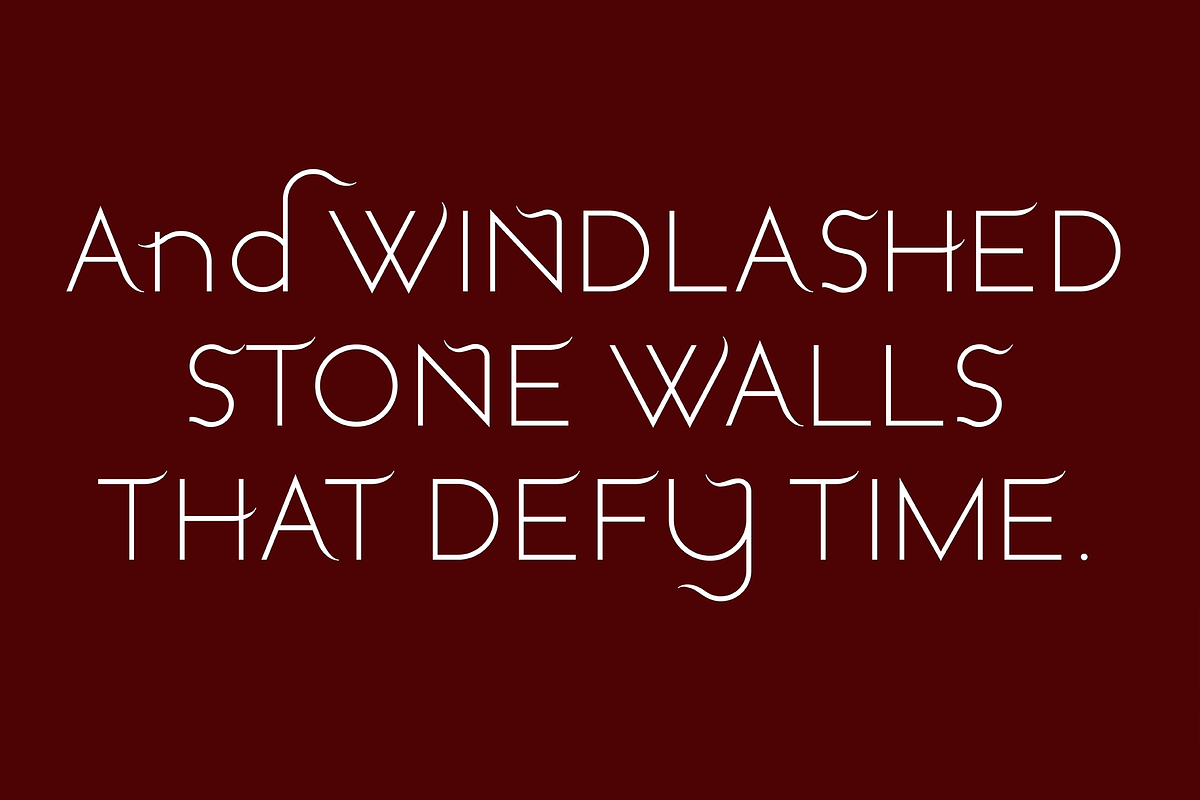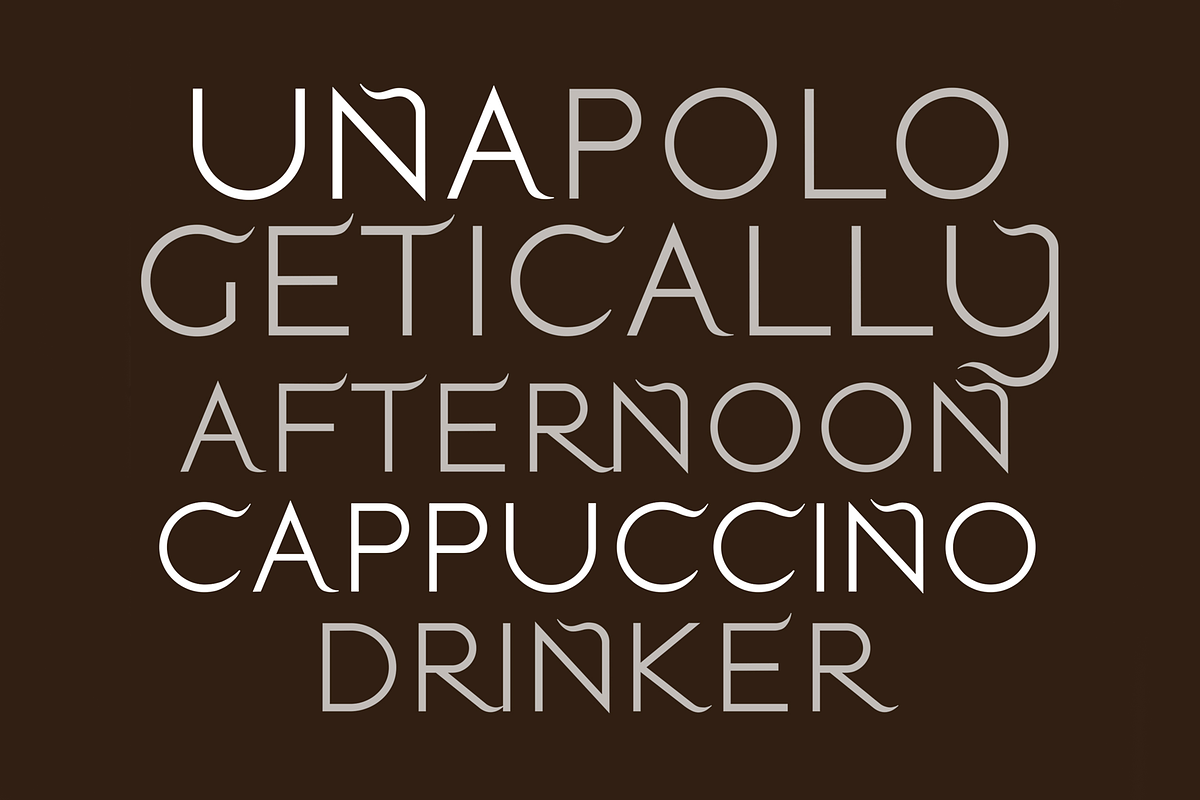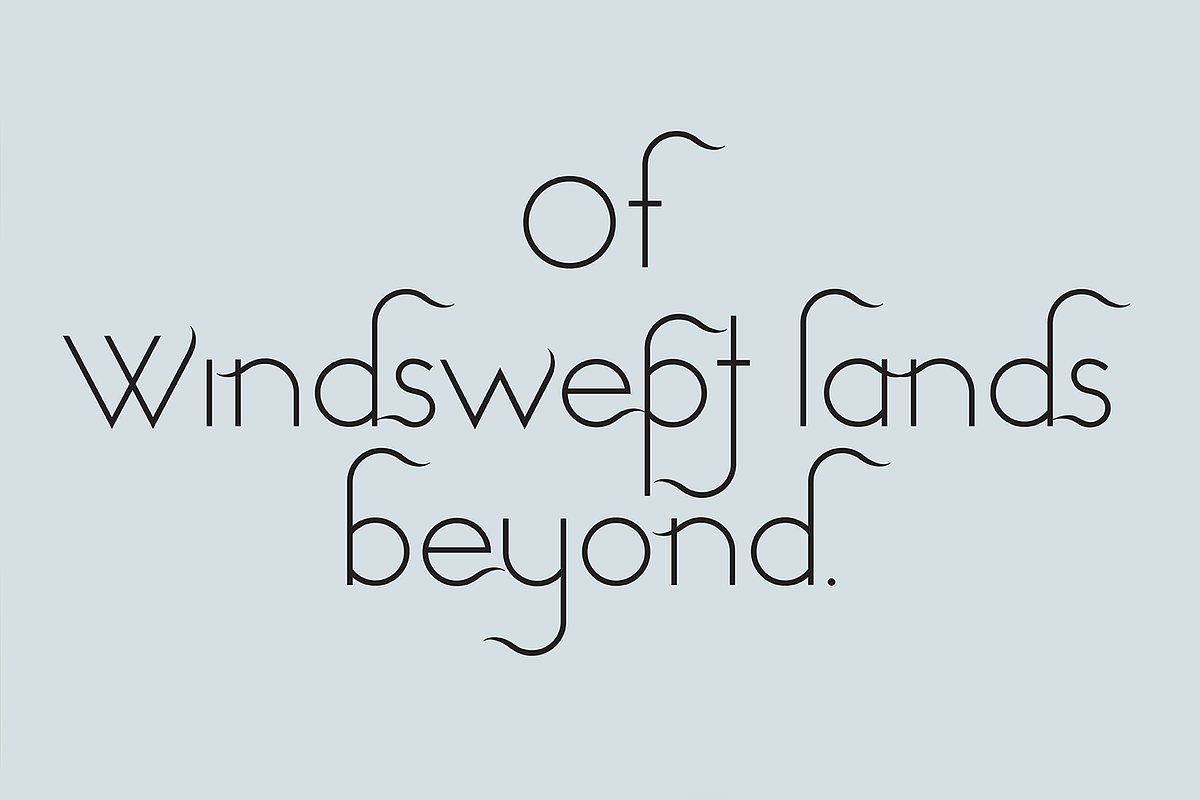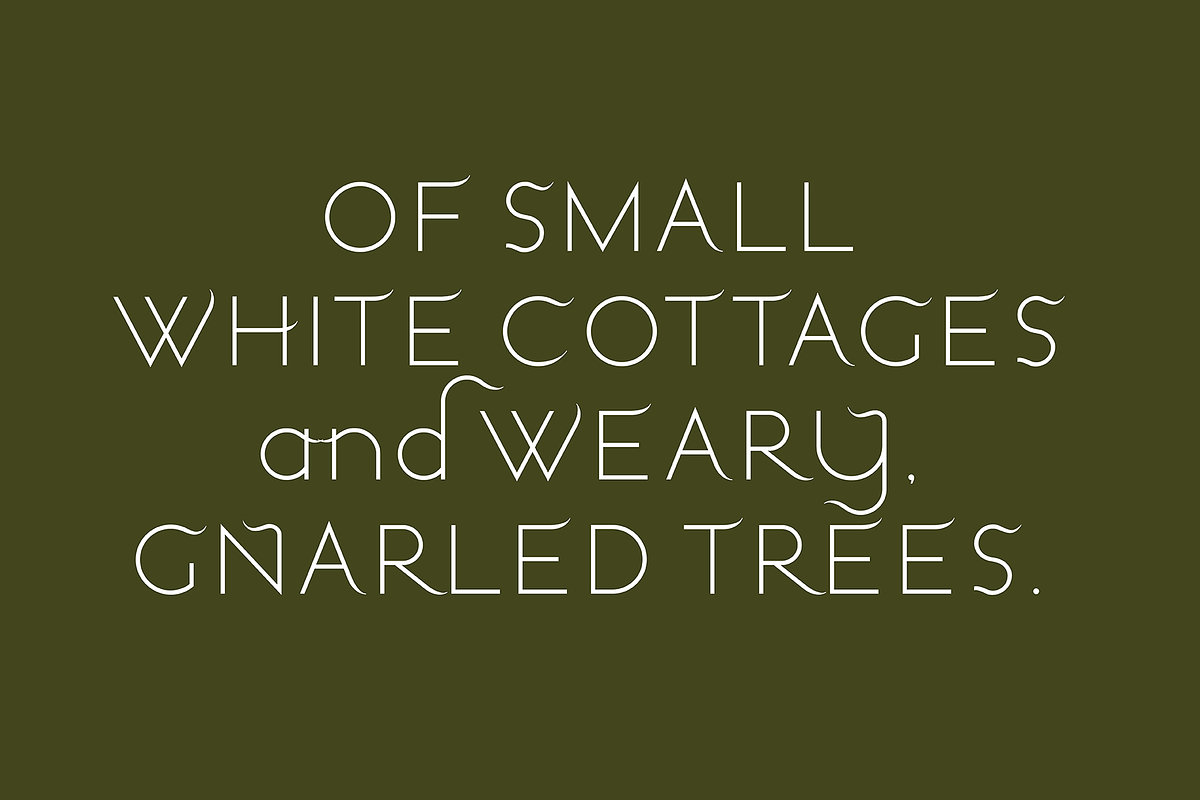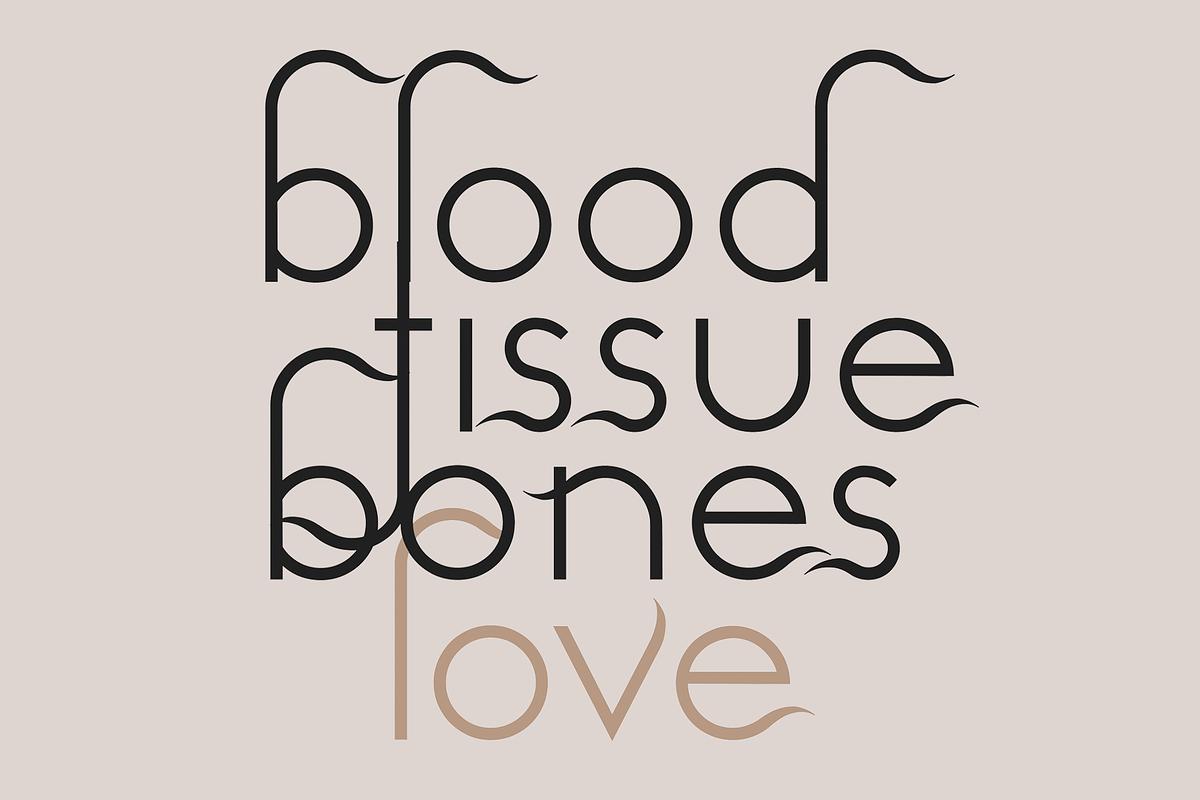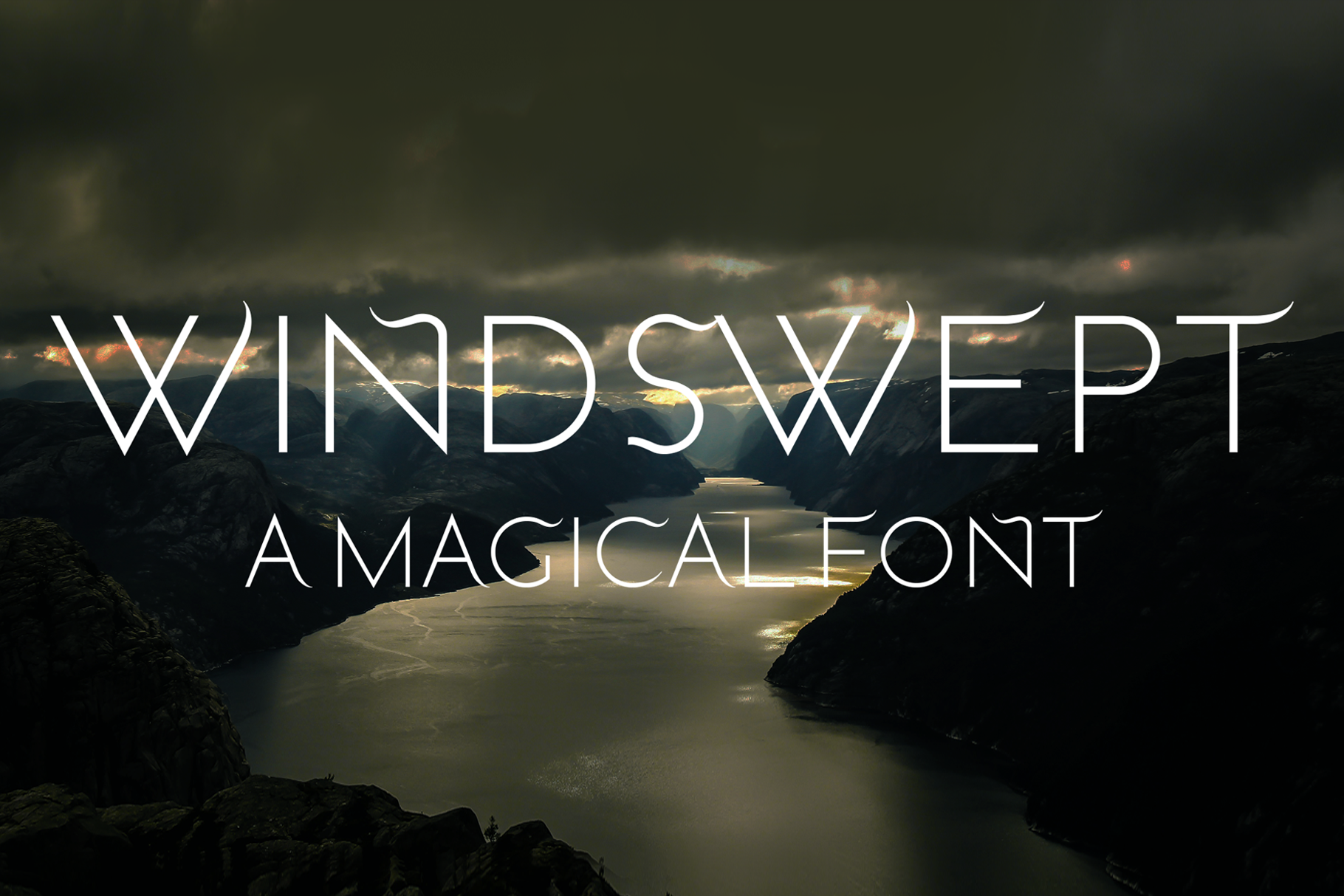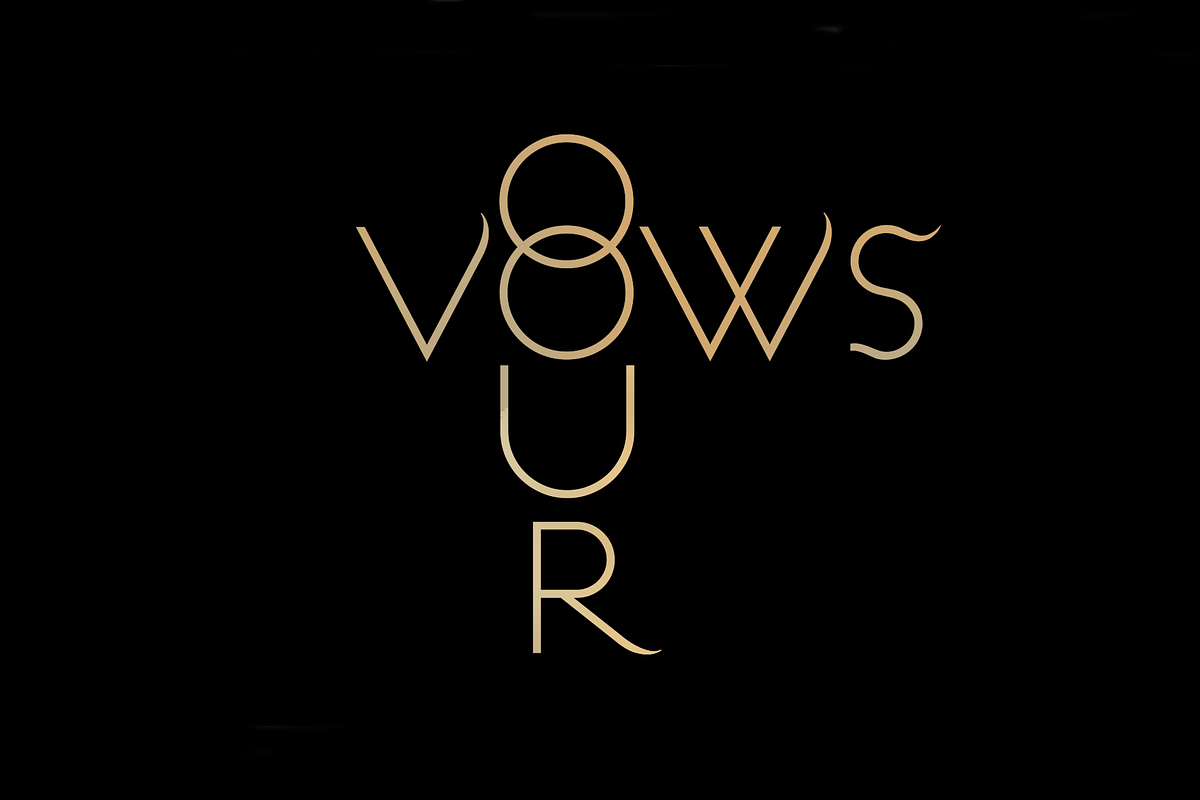
Windswept. Stunning sans serif font
Windswept is an exceptional new 'crossover font' for designers from LostandFoundry. This typeface has the look and feel of a modern, clean-lined sans serif font, yet with subtle, 'serif-like' touches.
This unique typeface is full of character and fluidity, drawing design inspiration from the dramatic wind-lashed landscape of the Isle of Skye, Scotland, and of the enchanted worlds created from the mind of Tolkien.
Windswept is magical when used in your design projects - in headlines, titles, logos, packaging designs, wedding designs, brand identity and all typographical designs. And online in websites, blogs, vlog titles, Youtube creator titles and social media post titles. Windswept comes in two weights and supports French, German and other European languages.